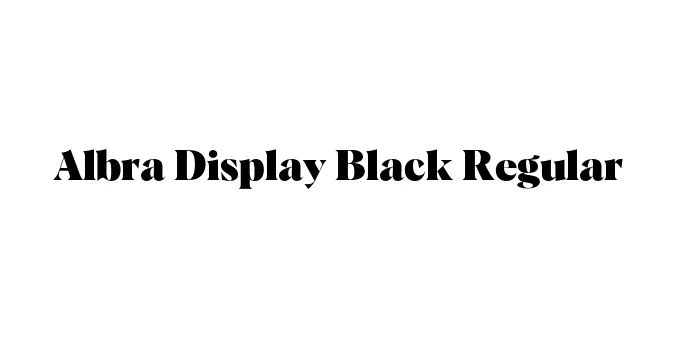
Albra Display Black Regular
Designed by BumBumType
Albra Display Black Regular is a sophisticated, high-contrast serif typeface designed by the BumBumType foundry. It represents a fusion of classical elegance and contemporary flair, featuring dramatic stroke variations and refined teardrop terminals. This specific weight is crafted for maximum impact, making it an ideal choice for designers looking to create a sense of luxury and authority in their visual compositions.
The font family is widely recognized for its versatility in the editorial and fashion sectors, where its sharp serifs and large x-heights provide a distinct, high-end feel. Albra Display Black functions beautifully in large-scale applications, ensuring that every curve and hairline contributes to a polished and professional aesthetic that stands out in both print and digital media.
Albra Display Black Regular Best Uses
Perfect for magazine mastheads and high-impact headlines.
Ideal for luxury brand logos and visual identity packages.
Effective for high-end promotional materials and large-scale billboards.
Great for striking hero sections and sophisticated display typography.